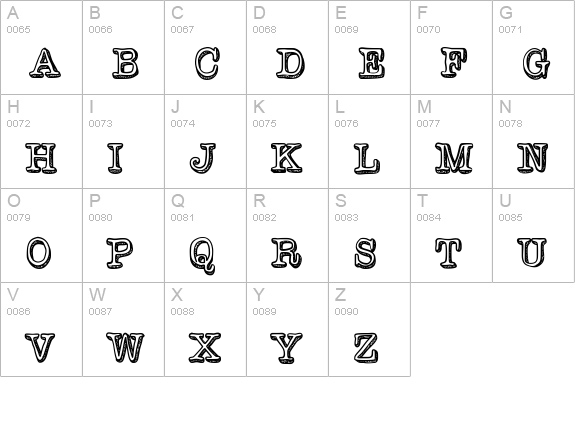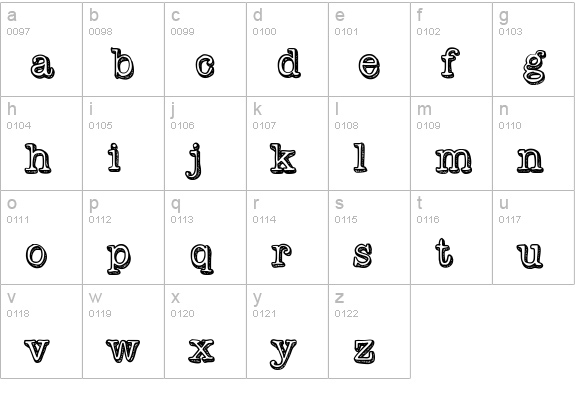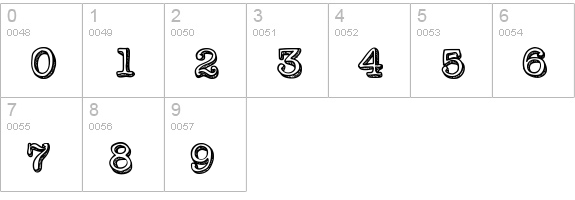
Introducing VintageOne, a stunning font that effortlessly captures the essence of nostalgia and elegance. With its timeless appeal and intricate details, VintageOne is the perfect choice for adding a touch of vintage charm to your designs. This exquisite typeface features beautifully crafted letterforms, reminiscent of the classic typography that defined eras gone by. Each character is meticulously designed to exude a sense of elegance and refinement, making VintageOne a versatile font that can be used for a wide range of creative projects. What sets VintageOne apart is not only its aesthetic appeal, but also the fact that it is completely free. That's right, this extraordinary font is freely available to download at FontsMarket.com. Now you can effortlessly elevate your designs without any cost, making VintageOne the perfect choice for designers on a budget. Whether you're working on a vintage-inspired logo, a nostalgic branding project, or simply want to add a touch of sophistication to your designs, VintageOne is the font that will take your creations to the next level. Its timeless beauty and versatility make it a must-have for any designer's toolkit. So why wait? Download VintageOne today from FontsMarket.com and unlock a world of endless creative possibilities. Let VintageOne be your go-to font for all your vintage-inspired projects, and watch as your designs come to life with an undeniable air of timeless elegance.